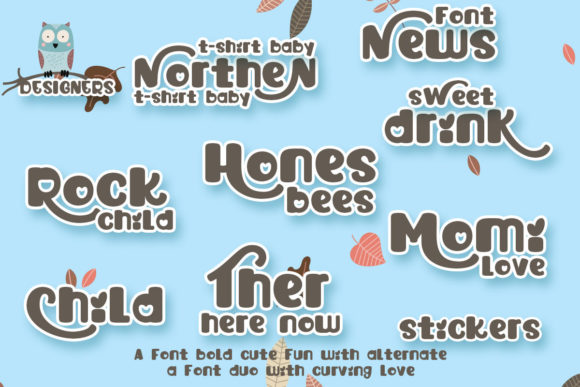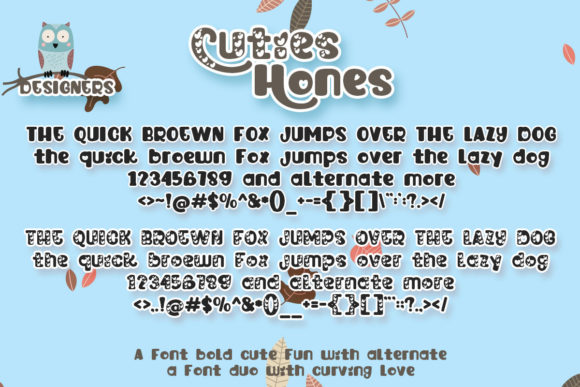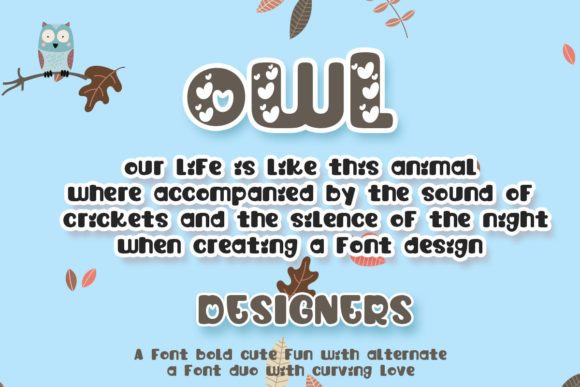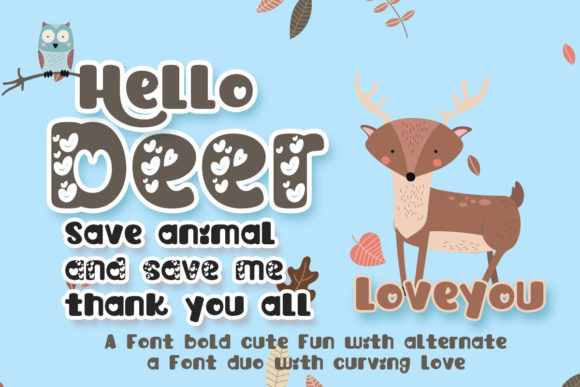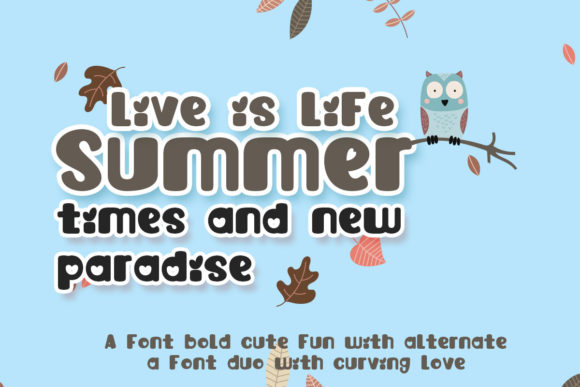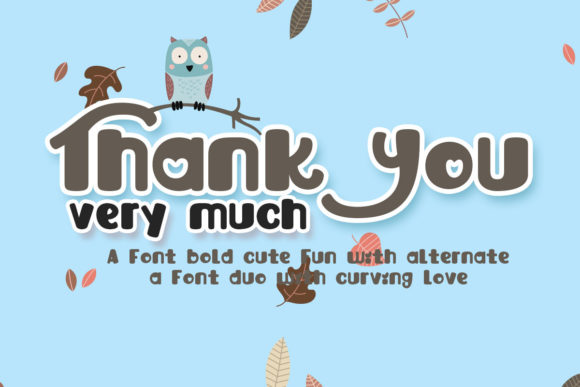
Introducing Cuties Hones Font: The Ultimate Display Font for Your Creative Projects
Are you tired of using the same old fonts in your designs? Do you want to add a touch of whimsy and quirkiness to your projects? Look no further than Cuties Hones Font, a very cute display font that’s sure to brighten up each of your designs. In this article, we’ll take a closer look at Cuties Hones Font, its features, and how you can use it to take your designs to the next level.
What is Cuties Hones Font?
Cuties Hones Font is a display font that’s designed to add a touch of cuteness and playfulness to your designs. With its whimsical and quirky style, this font is perfect for designers and crafters who want to create unique and eye-catching projects. Whether you’re working on a logo, brochure, or social media graphic, Cuties Hones Font is sure to make your design stand out.
Key Features of Cuties Hones Font
So, what makes Cuties Hones Font so special? Here are some of its key features:
- Unique and Quirky Style: Cuties Hones Font has a one-of-a-kind style that’s sure to add a touch of personality to your designs.
- Whimsical and Playful: This font is perfect for designers who want to create fun and playful projects.
- High-Quality Design: Cuties Hones Font is designed with high-quality craftsmanship in mind, ensuring that your designs look professional and polished.
- Easy to Read: Despite its quirky style, Cuties Hones Font is easy to read, making it perfect for use in a variety of design projects.
How to Use Cuties Hones Font in Your Designs
Now that we’ve covered the features of Cuties Hones Font, let’s talk about how you can use it in your designs. Here are some ideas to get you started:
- Logos and Branding: Use Cuties Hones Font to create a unique and memorable logo for your business or brand.
- Social Media Graphics: Add a touch of whimsy to your social media graphics with Cuties Hones Font.
- Brochures and Flyers: Use Cuties Hones Font to create eye-catching brochures and flyers that will grab the attention of your audience.
- Crafting and DIY Projects: Cuties Hones Font is perfect for crafters and DIY enthusiasts who want to add a personal touch to their projects.
Tips for Getting the Most Out of Cuties Hones Font
To get the most out of Cuties Hones Font, here are some tips to keep in mind:
- Use it Sparingly: While Cuties Hones Font is a beautiful font, it’s best to use it sparingly to avoid overwhelming your design.
- Pair it with Other Fonts: Experiment with pairing Cuties Hones Font with other fonts to create a unique and visually appealing design.
- Experiment with Colors: Don’t be afraid to experiment with different colors and textures to add depth and interest to your design.
In conclusion, Cuties Hones Font is a very cute display font that’s perfect for designers and crafters who want to add a touch of whimsy and quirkiness to their projects. With its unique and quirky style, high-quality design, and ease of use, Cuties Hones Font is sure to brighten up each of your designs. So why wait? Add Cuties Hones Font to your projects today and see the difference it can make!